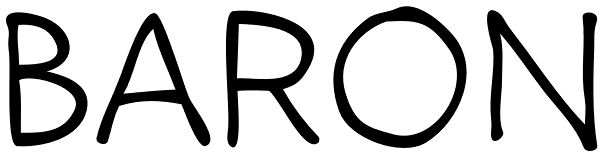
Baron
After Baronessa - funny but not crazy cartoon style font, Baron is an other handmade typeface, warm and friendly but not excessively childish. If Baronessa is a little feminine, Baron is neutral and it's funny and serious at the same time. Baron can...